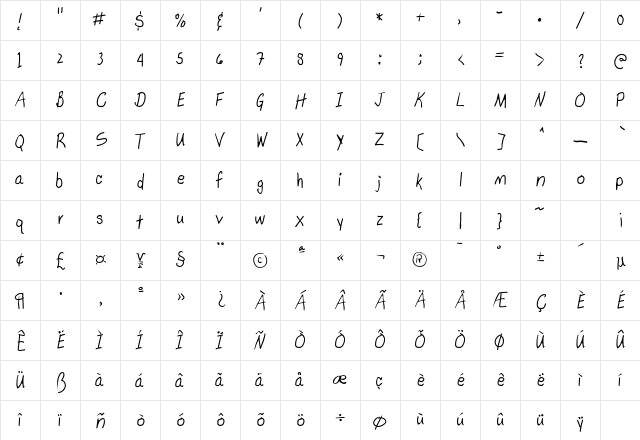
Scrawl Light Free Font
Scrawl Light
Scrawl Family
Scrawl Light
Design Context for Scrawl
Scrawl is a composed and adaptable typeface that performs quietly and consistently across a wide range of design contexts. Its slender proportions lend an understated elegance to any composition.